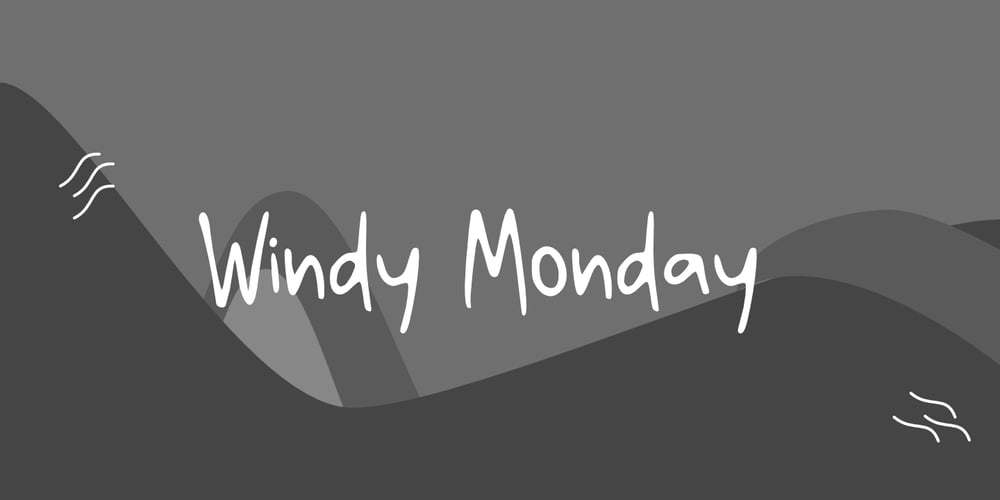
Windy Monday GT Font Family was designed by Gumilang Anggara Ruslan and published by Gartype Studio. Windy Monday GT contains 2 styles and family package options. Inspired by thin and condensed handwriting style, we present to you Windy Monday, a handwritten font with thin and condensed characters that was comes with alternates and multilingual glyphs to help people around world with that unique accent with this font.Windy Monday is very suitable like as text, cover book, poem, handwritten style, and more.That way easily change the glyphs to make more unique glyphs.